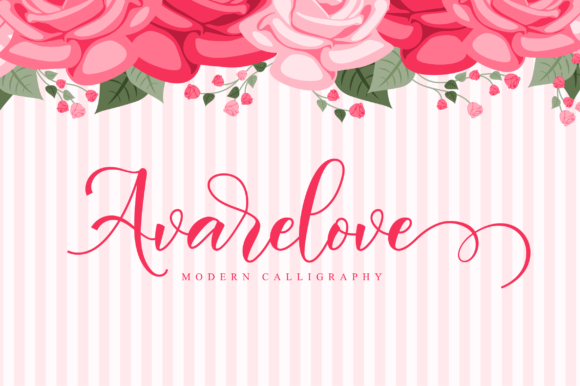
Have you ever found yourself staring at a blank canvas, searching for the perfect font to bring your design to life? You know that feeling when the right font can elevate your entire project, making it stand out from the crowd? For designers, finding the perfect font can be a game-changer.
That’s where the Avarelove Script Font comes in – a beautiful, elegant, and modern script font that’s perfect for a wide range of applications, from logos and branding to invitations and social media posts. With its classy and sophisticated look, Avarelove Script Font is a valuable addition to any designer’s toolkit, offering endless possibilities for creative expression.
Whether you’re working on a high-end branding project or a personal wedding invitation, Avarelove Script Font is sure to impress. In this article, we’ll dive deeper into the world of this stunning font and explore its many uses and benefits.
Key Features of Avarelove Script Font
- Font Style: Handwritten, Script
- Unique Characteristics: Includes a wide range of ligatures, swashes, and flourishes to create a unique and elegant handwriting effect
Avarelove Script Font Review
I recently had the chance to work with the Avarelove Script Font, and I must say it’s a beautiful addition to any design project. ✨ The elegant, cursive script is perfect for creating a romantic or vintage vibe, making it ideal for wedding invitations, greeting cards, or any other design that requires a touch of sophistication.
One of the things I love about Avarelove Script Font is its versatility. ✨ It comes in a range of styles and weights, allowing you to customize it to fit your design needs. The font is also highly legible, making it easy to read even at smaller font sizes.
While Avarelove Script Font is a great addition to any design project, there are a few limitations to keep in mind. ⚠️ One of the main concerns is that the font can be a bit too ornate for some designs. In some cases, it may be difficult to read or may get lost in the background. Additionally, the font may not be compatible with all operating systems or devices.
Overall, I’m very impressed with the Avarelove Script Font. While it has its limitations, it’s a beautiful and versatile font that can add a touch of elegance to any design project. If you’re looking for a script font that’s both stylish and legible, Avarelove Script Font is definitely worth checking out.
- Beautiful, elegant script design
- Highly legible, even at smaller font sizes
- Range of styles and weights available
- May be too ornate for some designs
Practical Application Guide for Avarelove Script Font
Tips for Getting the Most Out of Avarelove Script Font
To get the most out of Avarelove Script Font, try the following:
- Use it for titles, headings, or quotes to add a touch of elegance.
- Pair it with a clean sans-serif font for body text.
Alternatives to Avarelove Script Font for Designers
Carolyna Pro is a beautiful script font ideal for creating elegant and sophisticated designs. It features a mix of handwritten and cursive elements, making it perfect for wedding invitations, greeting cards, and other romantic-themed projects. Compared to Avarelove Script Font, Carolyna Pro has a more refined and polished look, making it suitable for high-end designs.
Great Vibes is a fun and playful script font that’s great for adding a touch of personality to your designs. It’s perfect for creating eye-catching titles, headings, and quotes. Compared to Avarelove Script Font, Great Vibes has a more casual and relaxed feel, making it suitable for creative and artistic projects.
Alex Brush is a elegant and sophisticated script font that’s perfect for creating beautiful and refined designs. It features a mix of handwritten and brush elements, making it ideal for projects that require a touch of elegance and sophistication. Compared to Avarelove Script Font, Alex Brush has a more delicate and refined look, making it suitable for high-end designs and luxury brands.
Q: How do I access the font’s advanced features, such as ligatures and swashes?